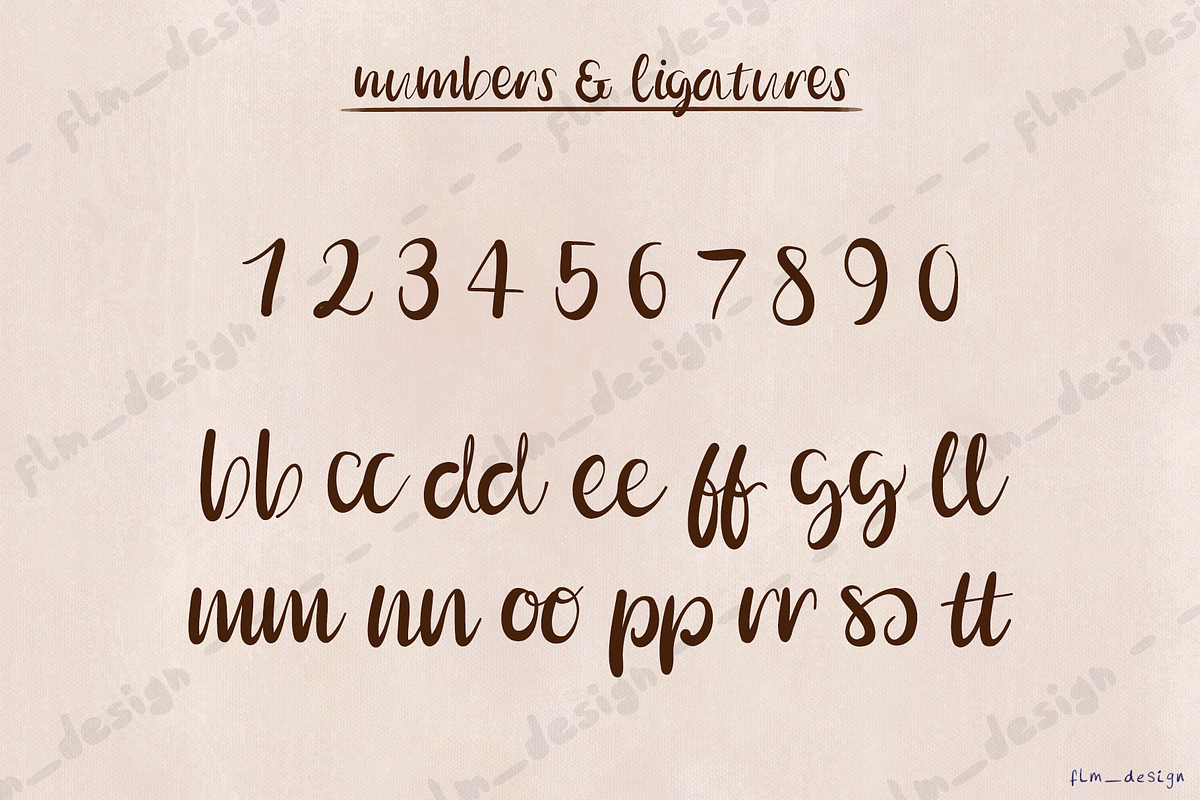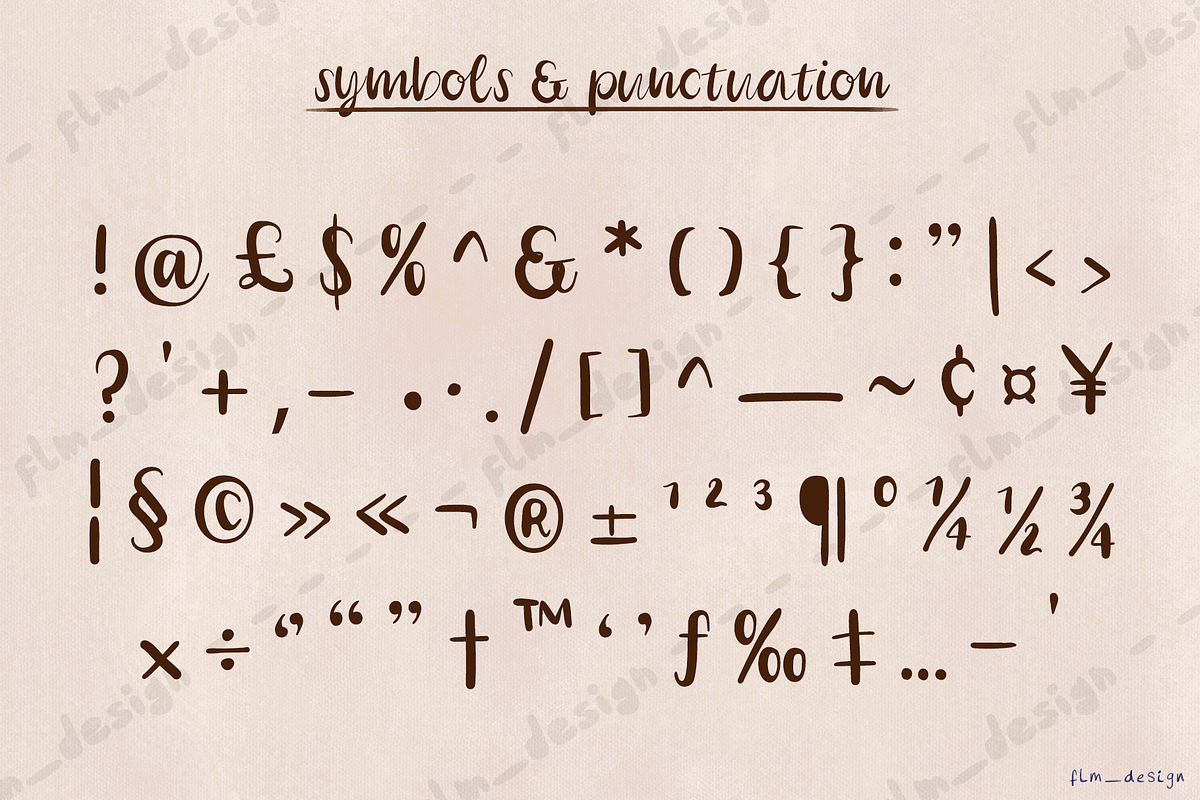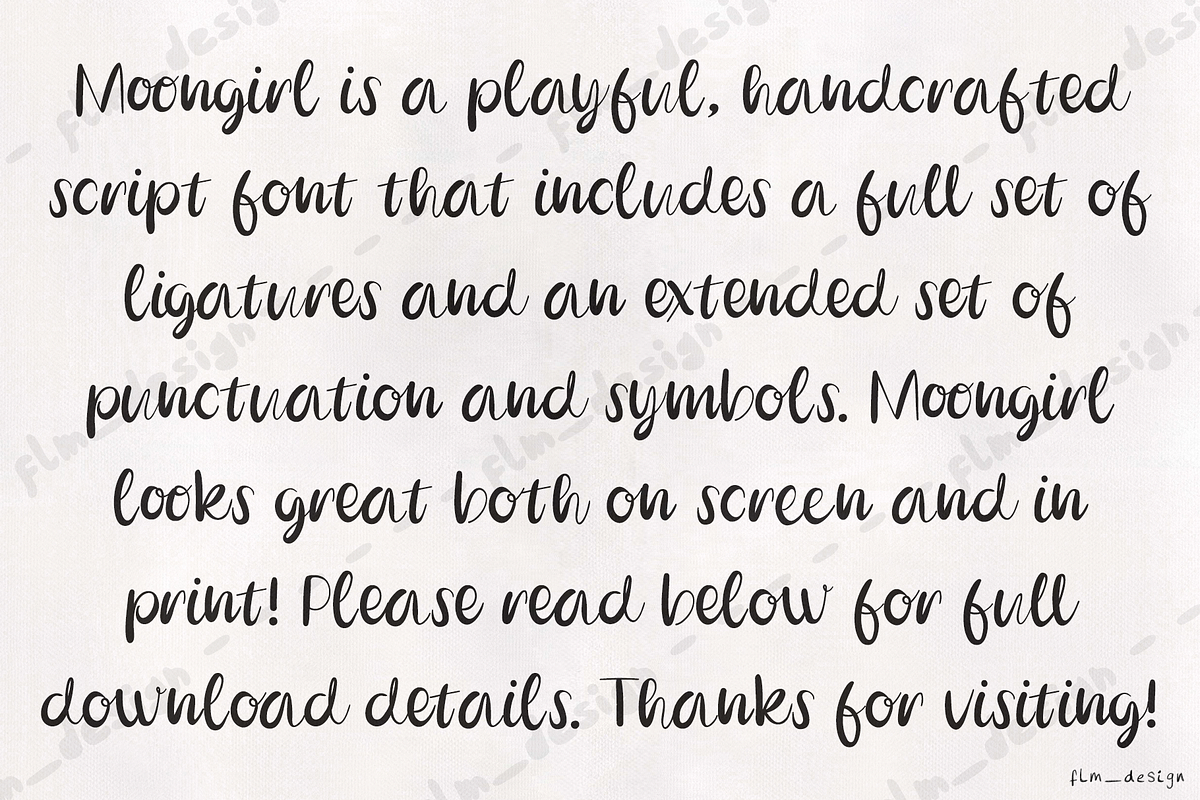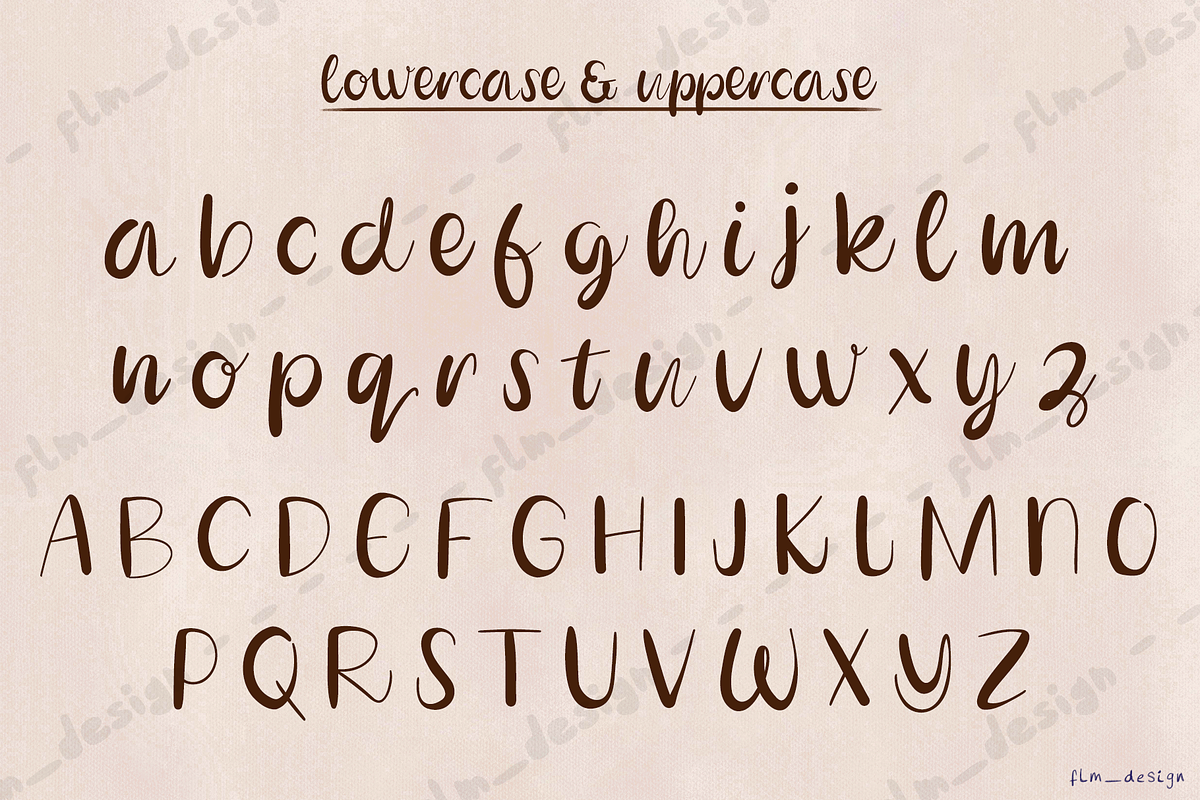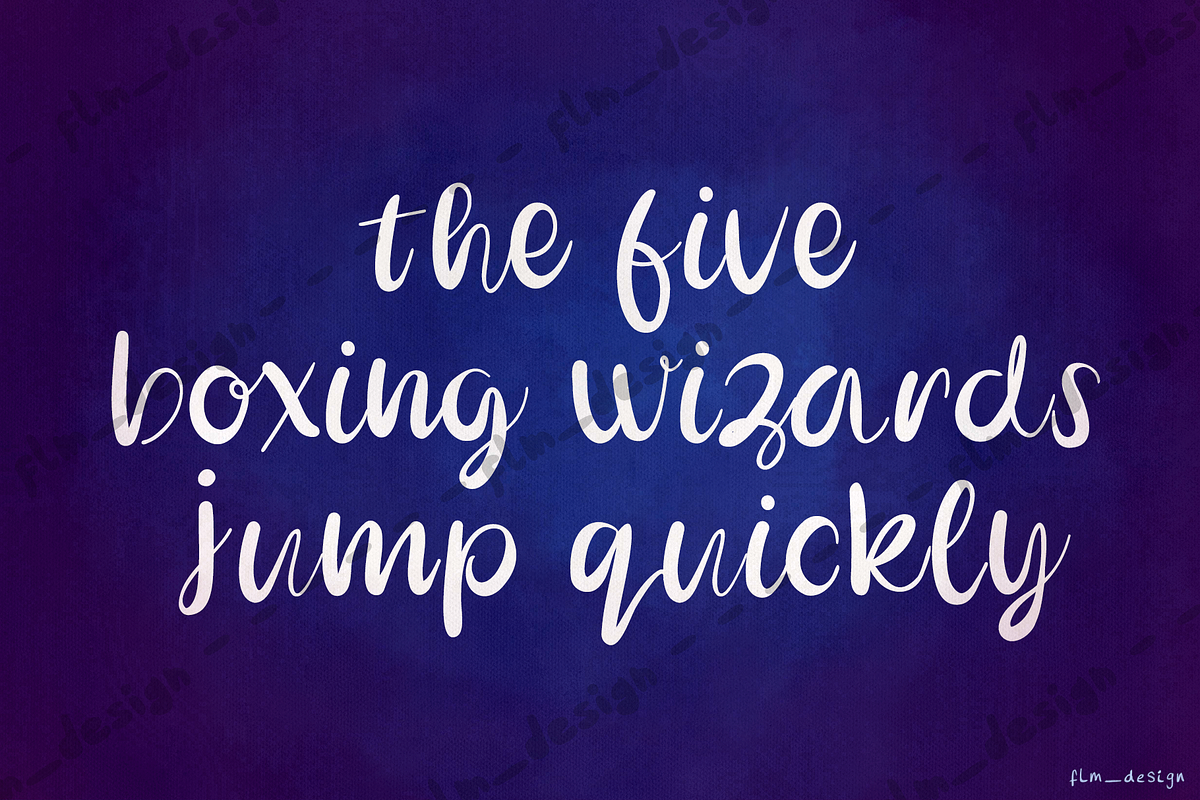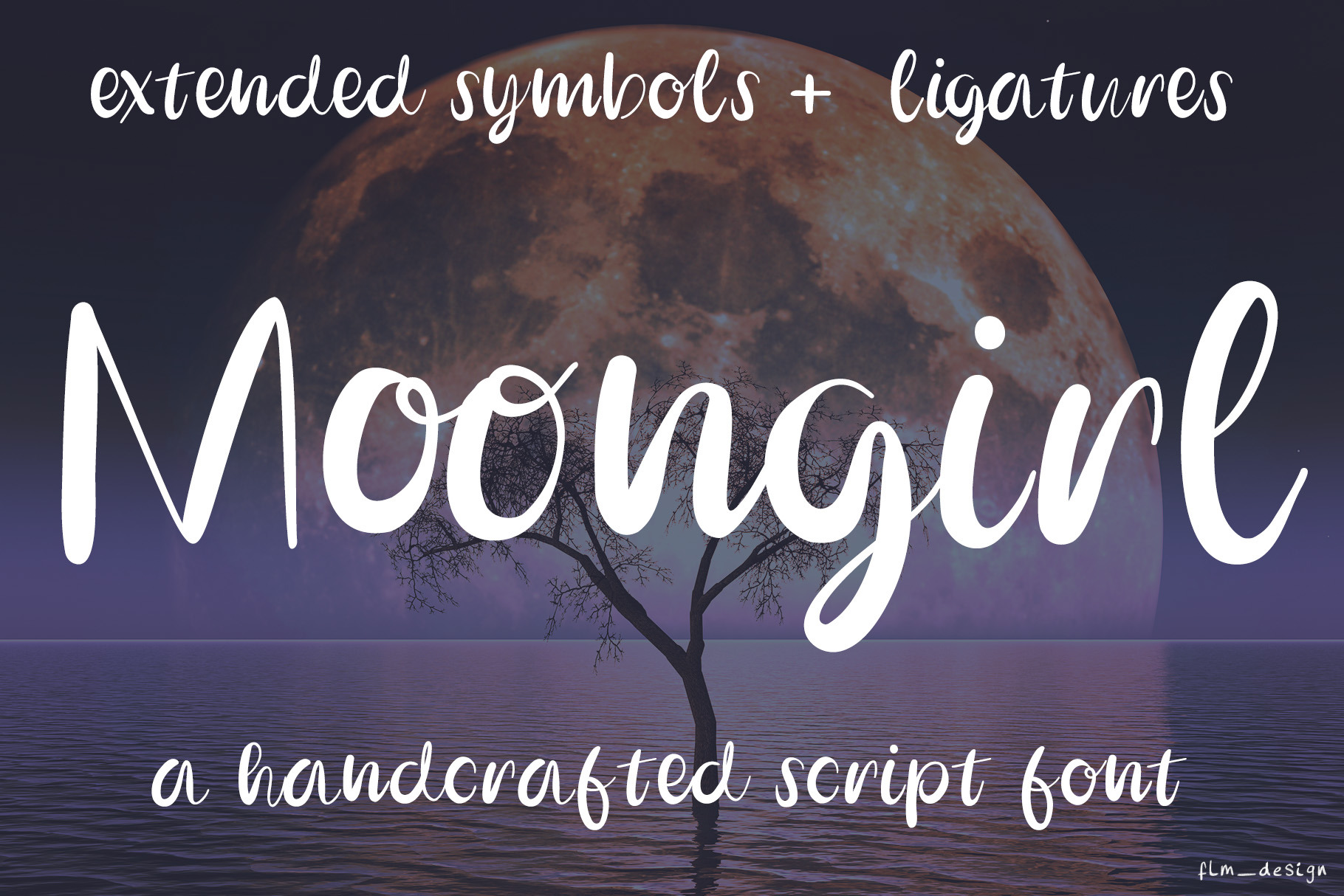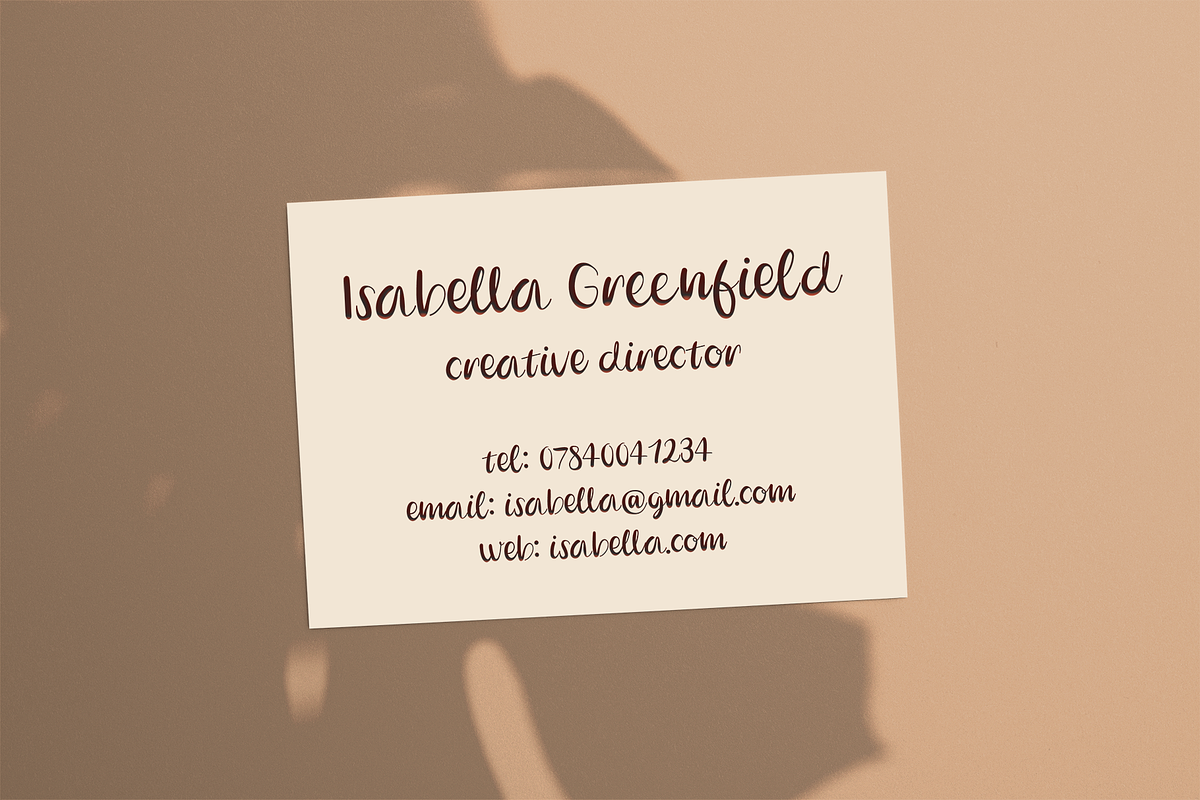
Moongirl Elegant Script Font
Moongirl is a playful, premium, dreamy handcrafted OTF vector font which comes with additional ligatures and an extended set of punctuation and symbols. Moongirl is compatible with all softwares that run OTF fonts and looks great both on screen and on print!
Moongirl can be used for anything from social posts, print, posters, cards, websites, business cards, name cards, letters, banners, the list goes on!